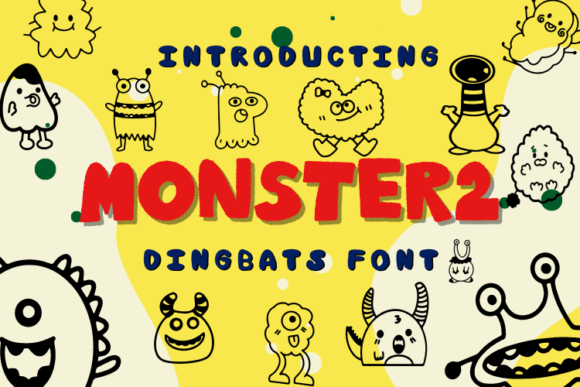
Welcome to the world of Monster2, an awe-inspiring dingbats font that's a true masterpiece of artistic expression. This enchanting font, meticulously crafted by the talented danita.kukkai, is a visual symphony of captivating monster faces that will add a touch of whimsy and magic to any creative endeavor.
Imagine a font that dances across the page, bringing life to your children's stories, posters, stickers, and coloring books. Monster2's whimsical charm will ignite their imaginations and transport them to a realm of boundless creativity. Watch as they eagerly reach for their crayons and markers, eager to color in the adorable monster faces and bring their own unique stories to life.
But Monster2's allure extends far beyond the realm of children's designs. Its quirky and playful nature makes it the perfect choice for a variety of creative projects. Adorn your posters with its charming monster faces and create eye-catching designs that demand attention. Transform your stickers into delightful works of art, sure to bring smiles to the faces of all who see them.
Whether you're a seasoned designer, an aspiring artist, or simply someone who appreciates the beauty of typography, Monster2 awaits you. Its versatility knows no bounds, making it the ideal font for a multitude of projects. Let your imagination run wild and explore the endless possibilities that await you.